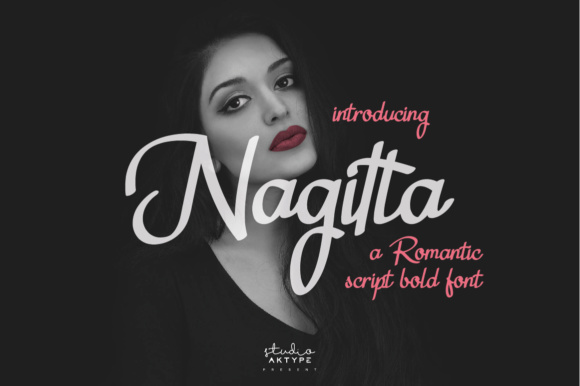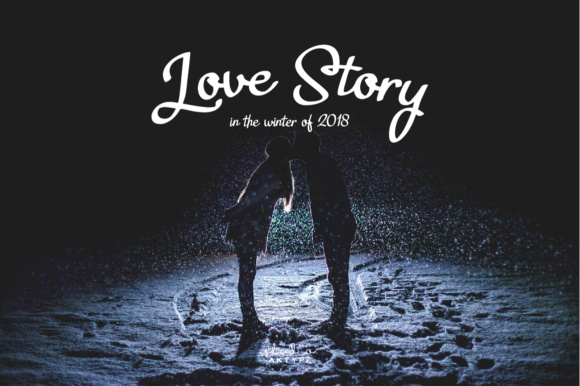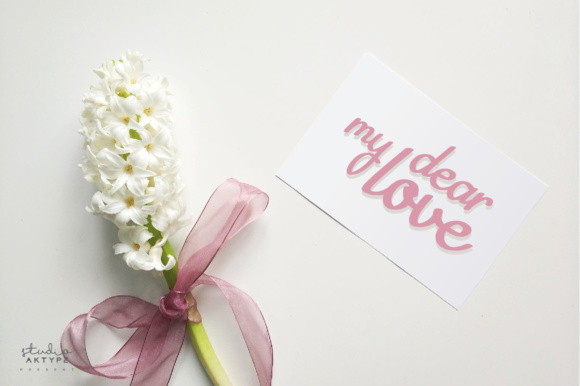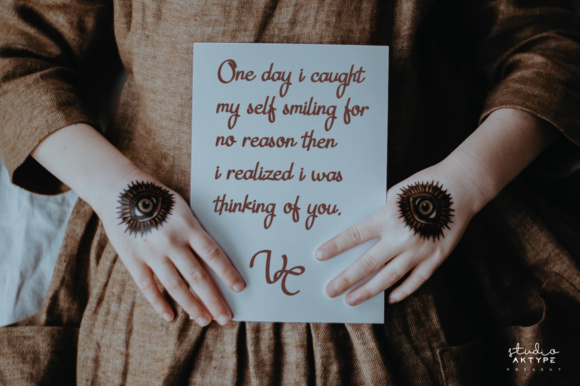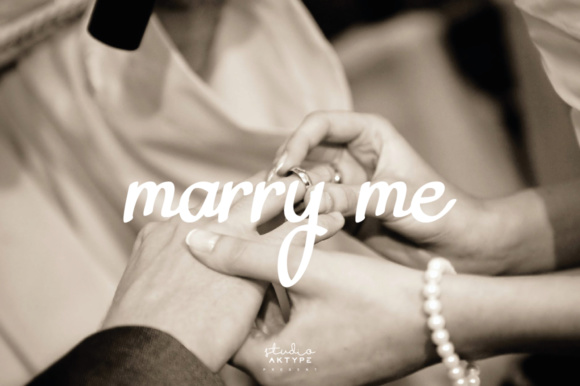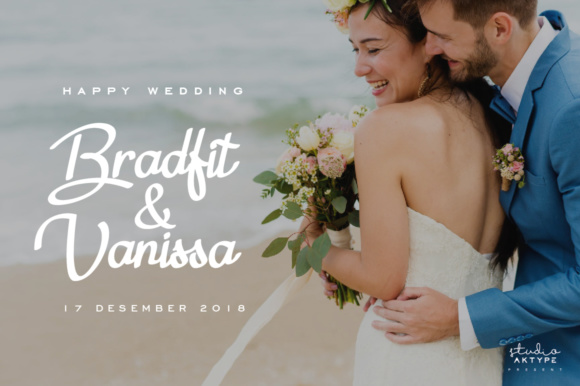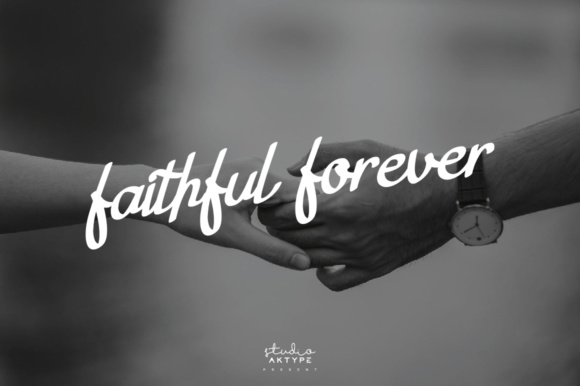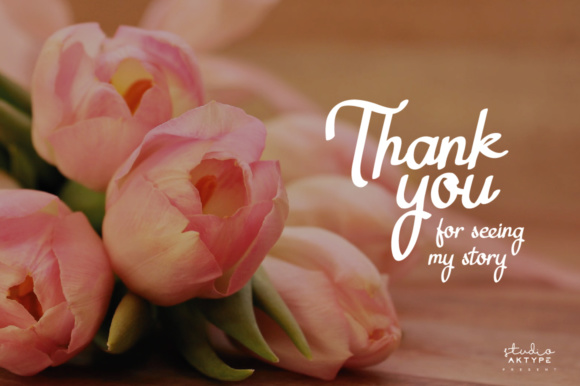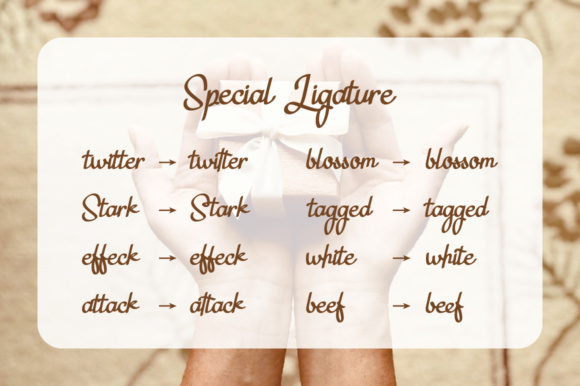
Nagitta Font
About Nagitta Font
The Nagitta is a script font, containing romantic letters that were inspired by a love story. It has a beautiful and elegant style, very suitable to be applied in every design that needs a handwritten feel.